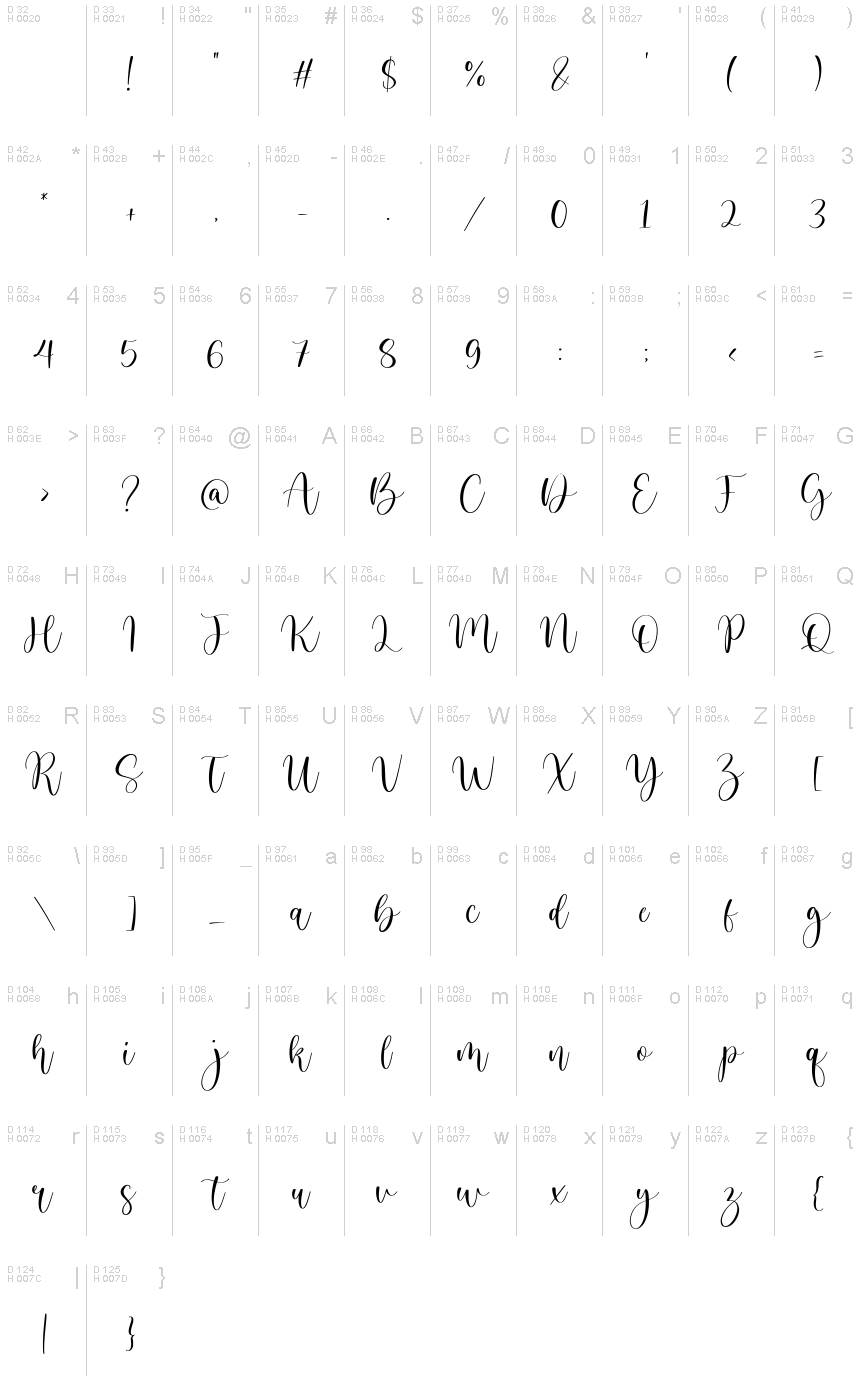
Glowitcher
Glowitcher, crafted by Timur Type, is a calligraphy font that dances with an elegant and fluid motion. Its sweeping curves and delicate swashes evoke a sense of timeless sophistication, making it a perfect choice for projects that require a touch of finesse. The hand-drawn nature of Glowitcher lends it an intimate and personal feel, which resonates with bespoke stationery, wedding invitations, and branding for luxury products.
The charm of this font lies in its ability to convey warmth and personality while maintaining an air of professional grace.